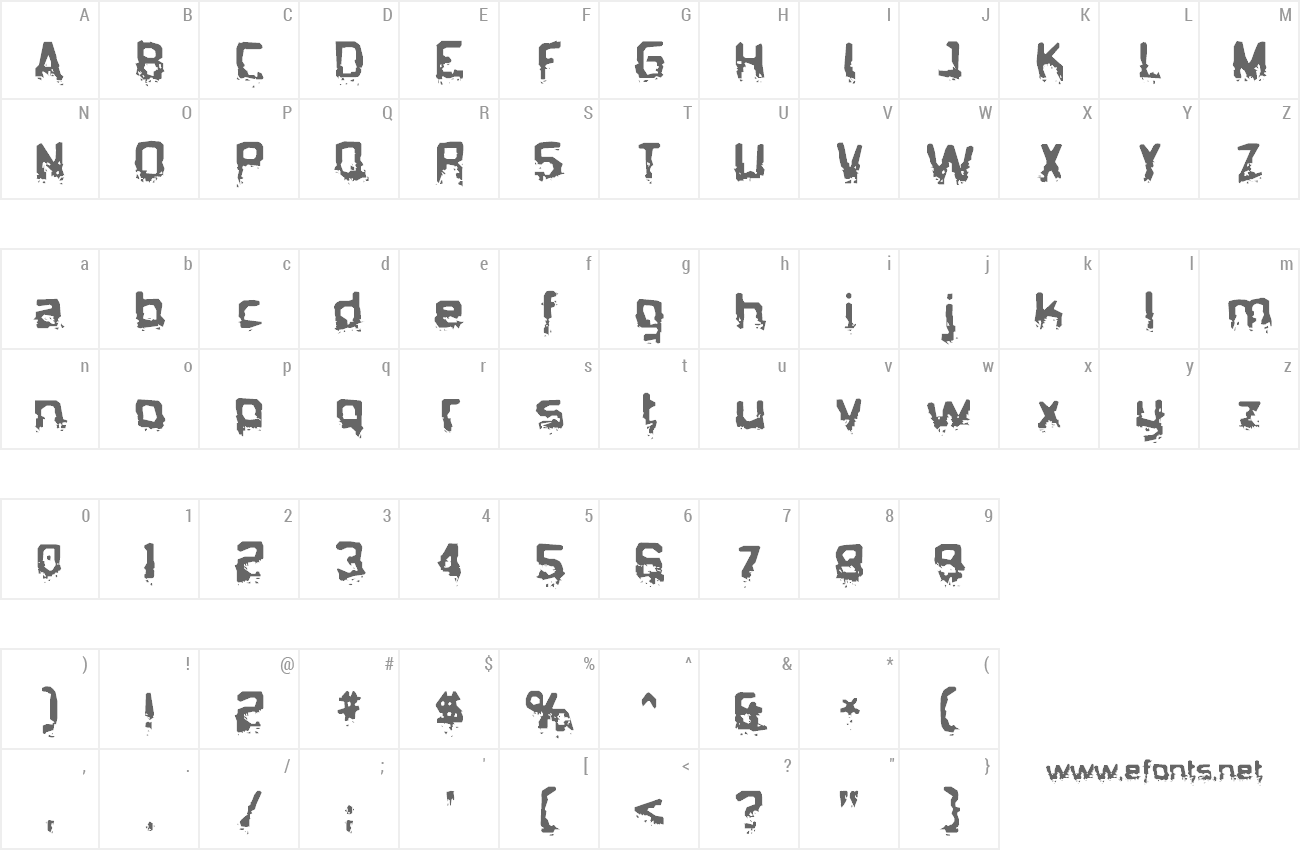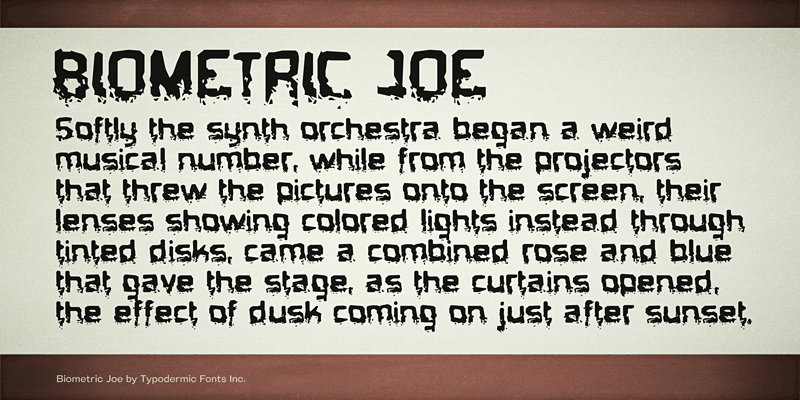
Preview and download Biometric Joe Font. Created by Typodermic Fonts in Fancy Horror styles with 100% Free license.
Biometric Joe is a decaying, crumbling font with crust appeal. This font includes a license that allows free commercial use: sometimes referred to as a desktop license. This allows you to install the font on a computer and use it to create posters, web graphics, game graphics, t-shirts, videos, signs, logos and more. Read the license agreement for details. If you'd like to embed this font in an app, ebook, on the web or anything that's not covered by the desktop license agreement, visit the link below. You'll find distributors who offer different types of licenses or you can contact me for help. http://typodermicfonts.com/biometric-joe/ |